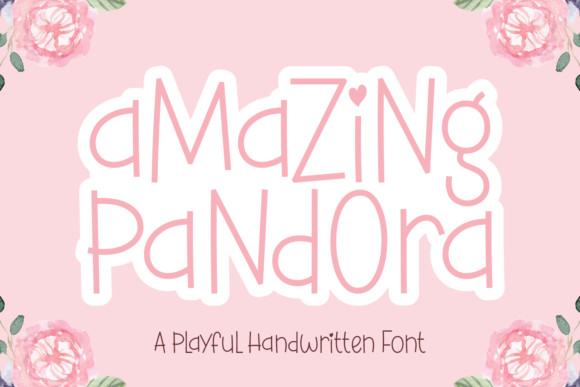
In the realm of typography, a new star has emerged, ready to captivate your designs and ignite your creativity. Allow us to introduce "Amazing Pandora," a script font that spells magic with its every curve and stroke. This enchanting handwritten masterpiece is the brainchild of the skilled artisans at Creative Fabrica Fonts, who have poured their heart and soul into crafting a font that dances with personality and charm.
"Amazing Pandora" is not merely a font; it's an expression of individuality, a gateway to a world where your words take on a life of their own. With its playful and friendly demeanor, this font is the perfect companion for informal projects, whether you're crafting heartfelt letters, whimsical invitations, or quirky social media posts. Each character bears the unique touch of the human hand, adding an intimate and personal flair to your creations.
But don't be fooled by its carefree nature. "Amazing Pandora" is a versatile chameleon that effortlessly adapts to a multitude of design styles. From rustic and vintage to modern and minimalistic, this font seamlessly blends with your vision, adding a dash of elegance and sophistication wherever it goes. Whether you're a seasoned designer or just starting your creative journey, "Amazing Pandora" is your trusty sidekick, ready to elevate your projects to new heights.
Unlock the endless possibilities that await with "Amazing Pandora." Let your imagination run wild as you explore its infinite applications. Add a touch of whimsy to your wedding invitations, create eye-catching logos that demand attention, design social media posts that spark engagement, or craft heartfelt greeting cards that leave a lasting impression. The possibilities are boundless, waiting for you to unveil them.